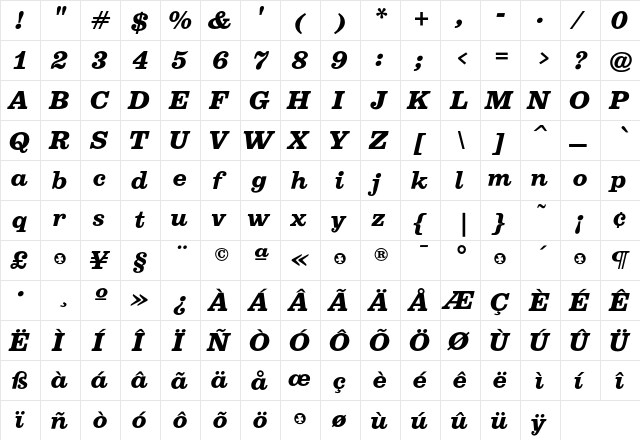
BelizioBoldItalic Regular
Design Context for BelizioBoldItalic Typeface
BelizioBoldItalic is a composed and adaptable typeface that performs quietly and consistently across a wide range of design contexts. The slanted form adds forward momentum and visual energy. Its bold stroke weight gives it real presence on the page.
Pro Tip: Try BelizioBoldItalic for annotation and caption copy alongside an upright companion — the contrast in angle creates a dynamic but ordered typographic system.